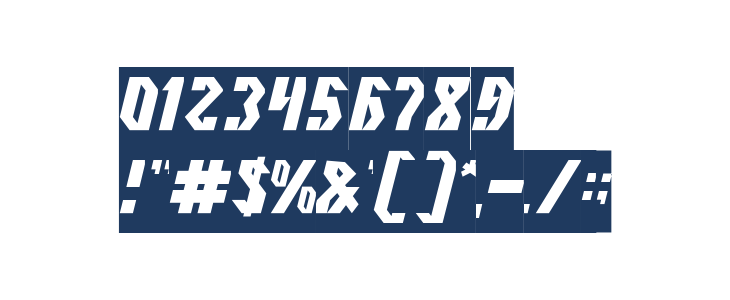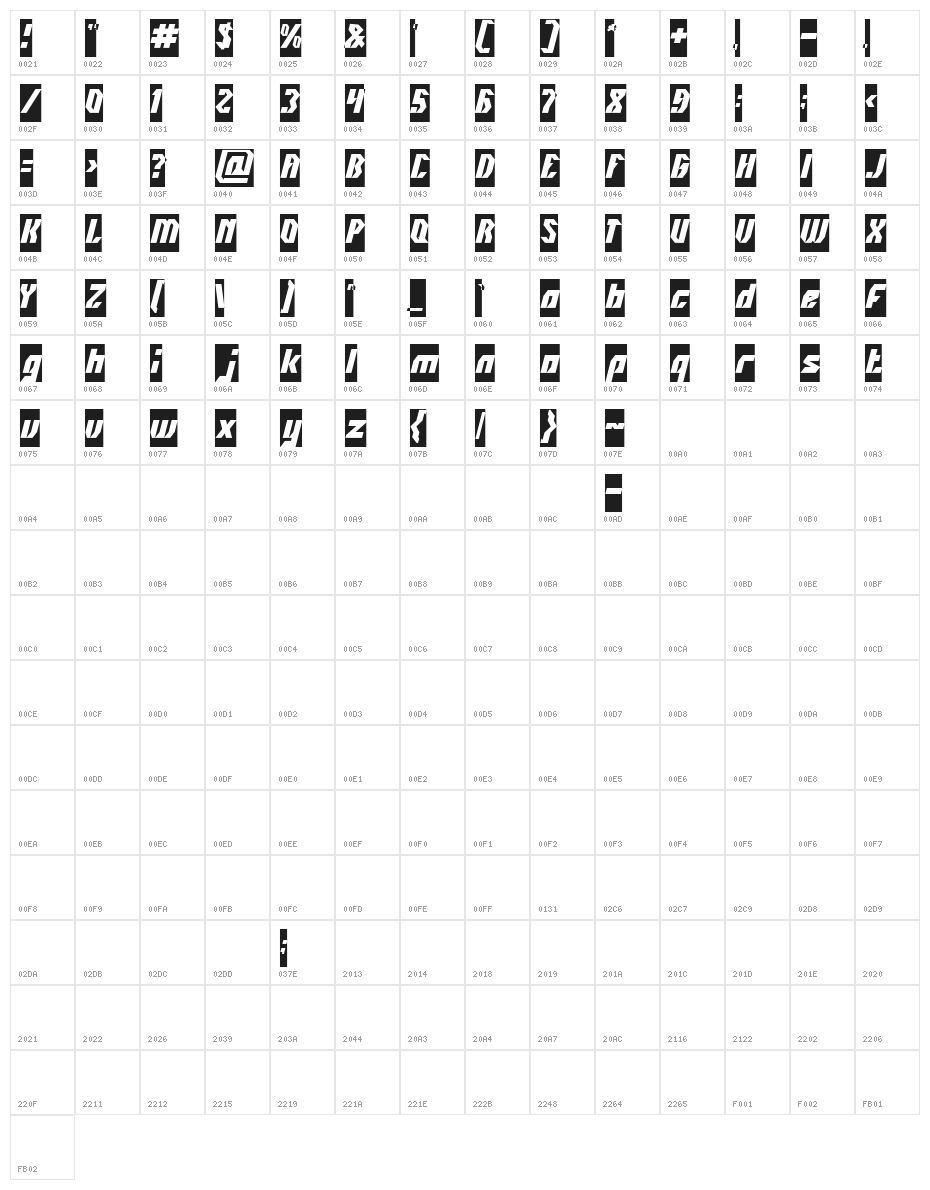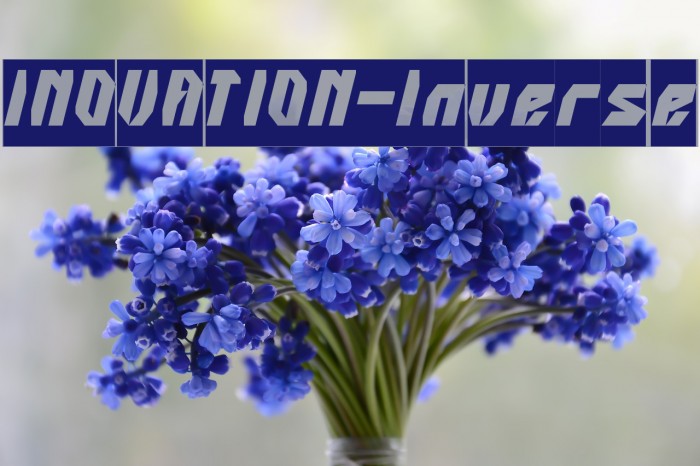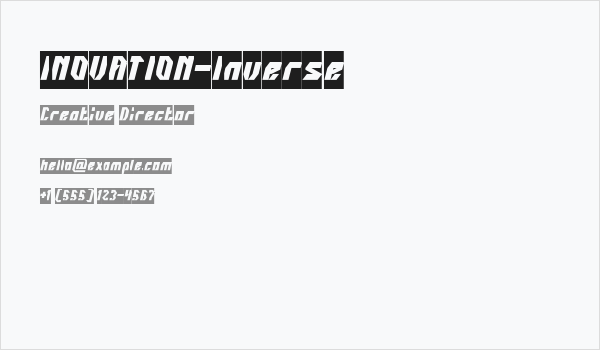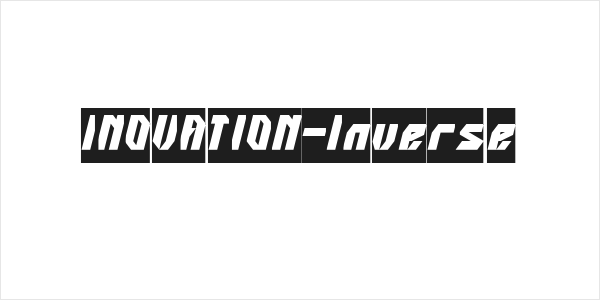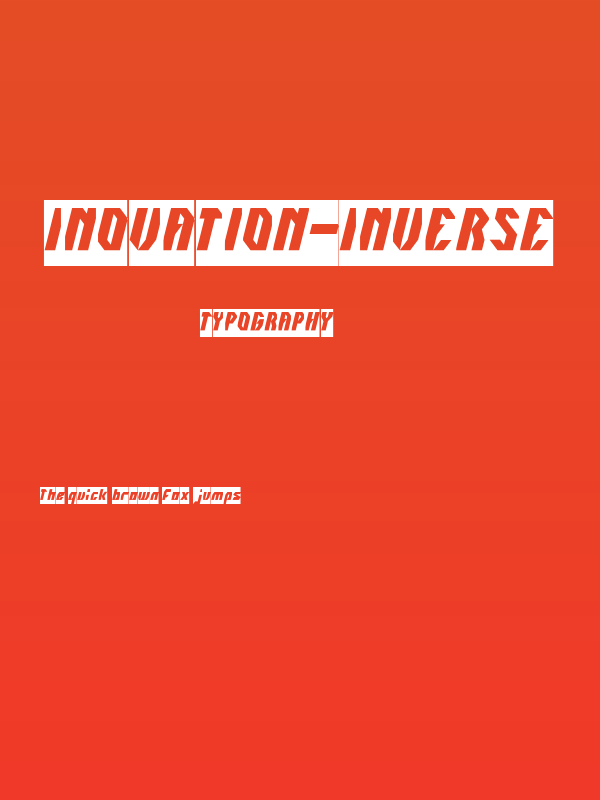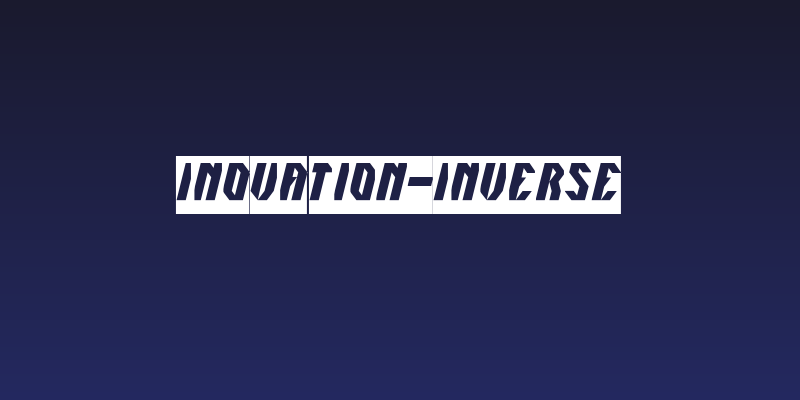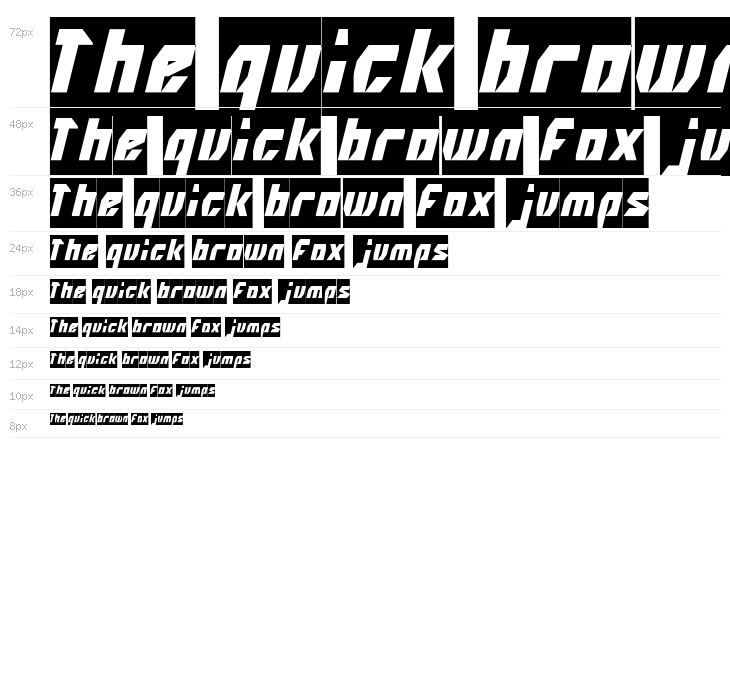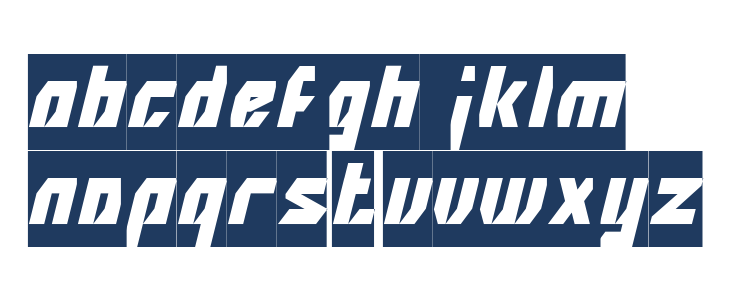
INOVATION-Inverse Font
INOVATION-Inverse Description
This font features a bold and dynamic design with sharp, angular edges and a futuristic aesthetic. The characters are crafted with a distinct slant, giving them a sense of motion and energy. The uppercase and lowercase letters maintain a consistent style, with strong geometric shapes and a uniform stroke width. The numbers and special characters are equally striking, complementing the overall design. This font's unique style makes it ideal for projects that require a modern and edgy look.
| Proposed Projects | Ideal for branding, posters, video game titles, and sci-fi themed projects. |